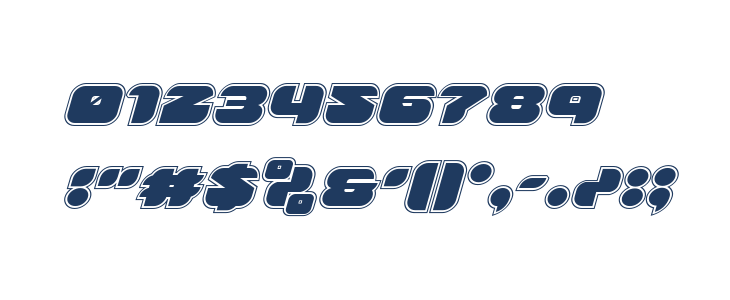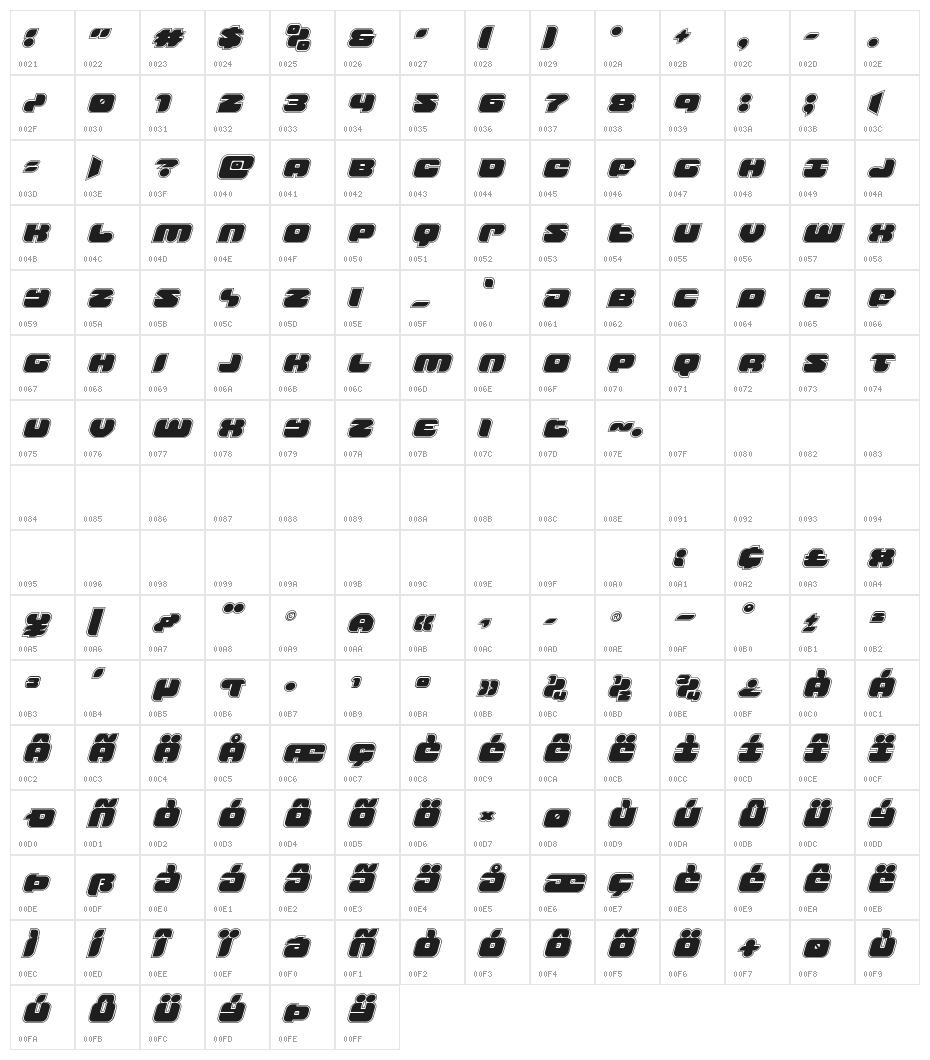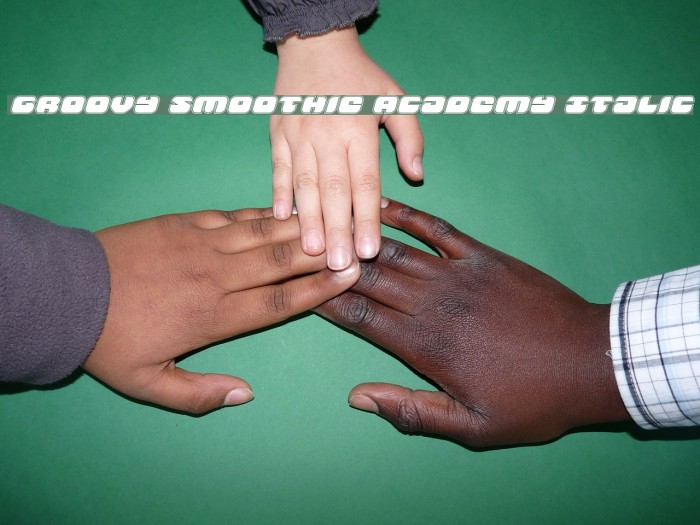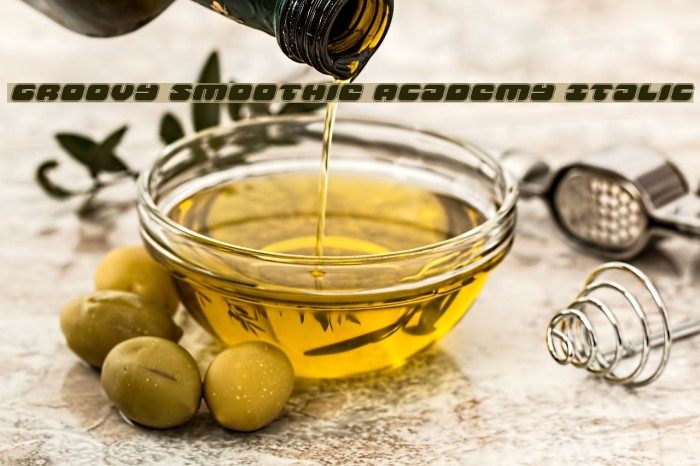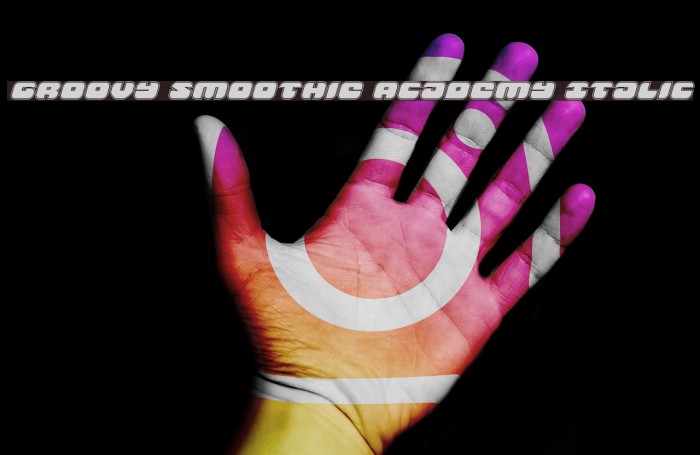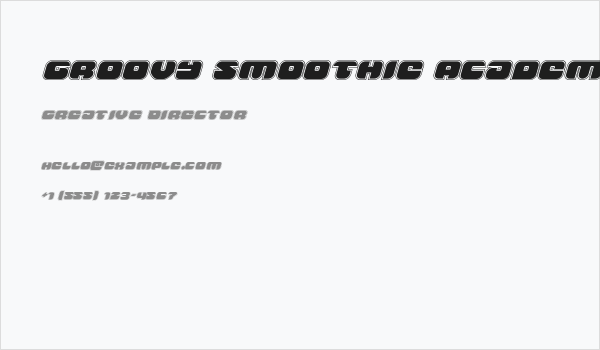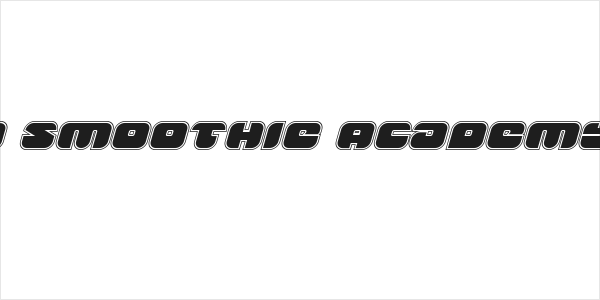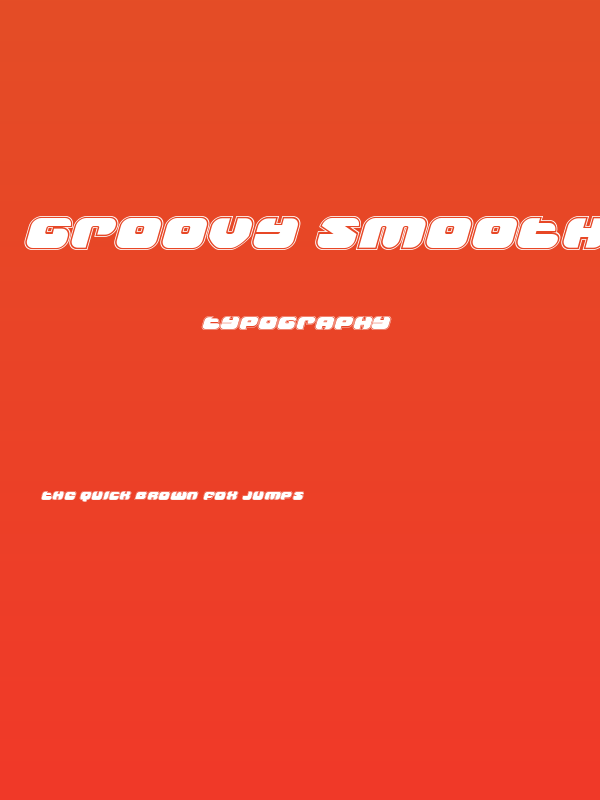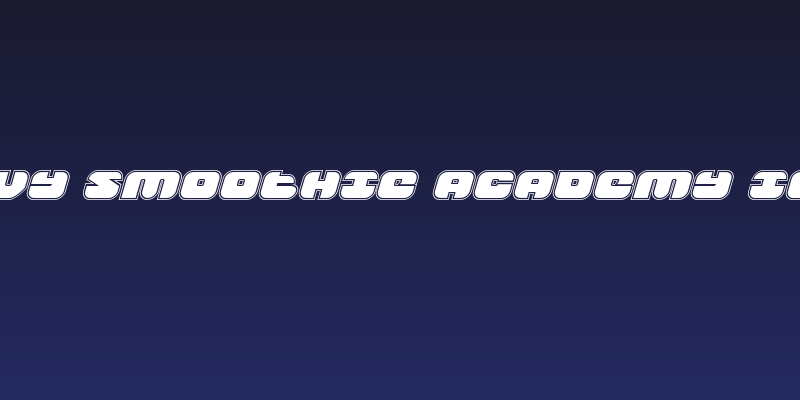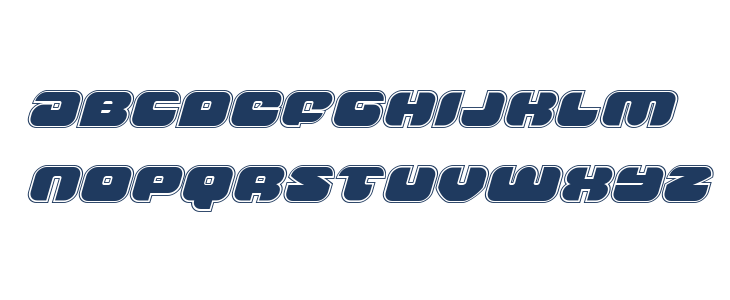
Groovy Smoothie Academy Italic Font
Groovy Smoothie Academy Italic Description
This font features a bold, playful style with a smooth, rounded appearance. The characters are outlined, giving them a distinct, eye-catching look. The design is reminiscent of retro or vintage aesthetics, with a modern twist. The letters are slightly italicized, adding a dynamic flow to the text. The numbers and special characters follow the same bold and outlined style, ensuring consistency across all elements. This font is perfect for projects that require a fun and engaging visual impact.
| Overall Style | Retro-Modern |
| Proposed Projects | Ideal for branding, posters, event invitations, and any project needing a lively and engaging typeface. |